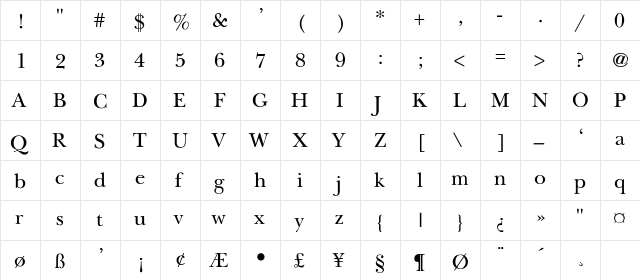
NewBaskerville-Light Regular Font Preview
NewBaskerville-Light Regular
NewBaskerville-Light Regular Font Details
Design Context for NewBaskerville-Light Typeface
NewBaskerville-Light is a composed and adaptable typeface that performs quietly and consistently across a wide range of design contexts. The delicate stroke weight brings airiness and refinement to layouts.